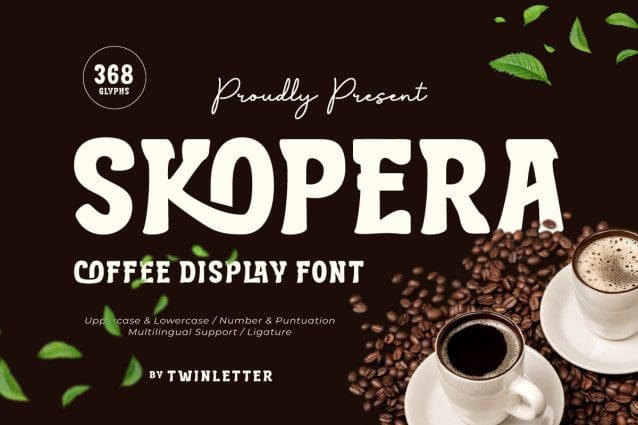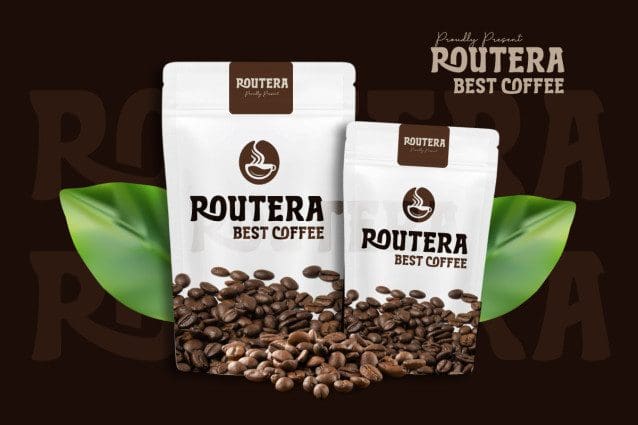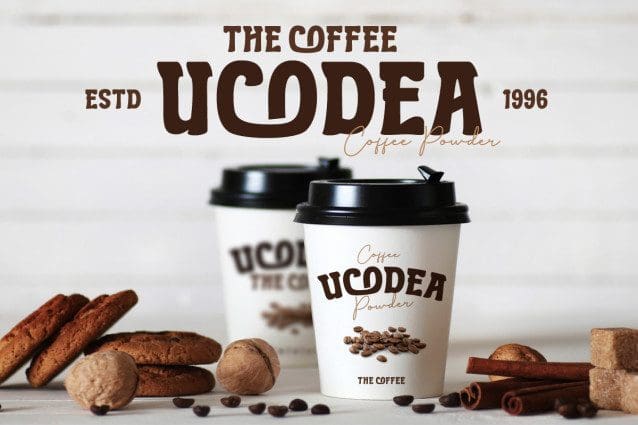
Skopera Coffee Font
Skopera Coffee Font, the perfect Coffee Display Font for all your café-inspired designs. Skopera blends elegant curves with playful elements, capturing the warm and inviting essence of your favorite coffee shop. Ideal for café menus, branding, packaging, and promotional materials, this font infuses your projects with sophistication and comfort.
Each letter is designed to evoke the aroma and ambiance of a freshly brewed cup, making your designs resonate with coffee lovers everywhere. Whether you’re crafting a rustic café menu or stylish coffee packaging, Skopera adds a touch of elegance and warmth that delights the senses.